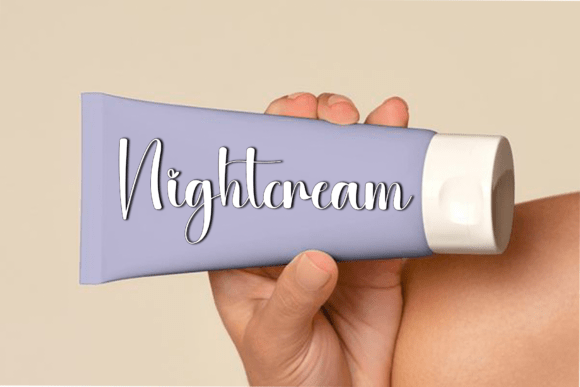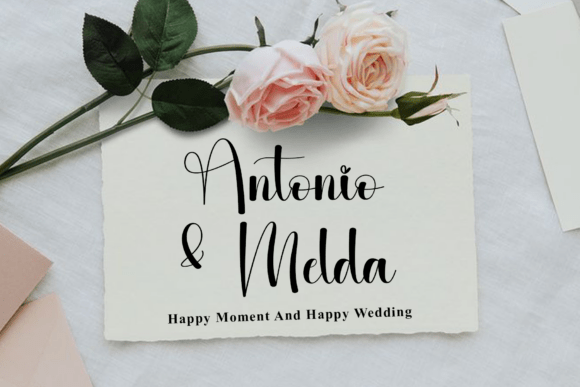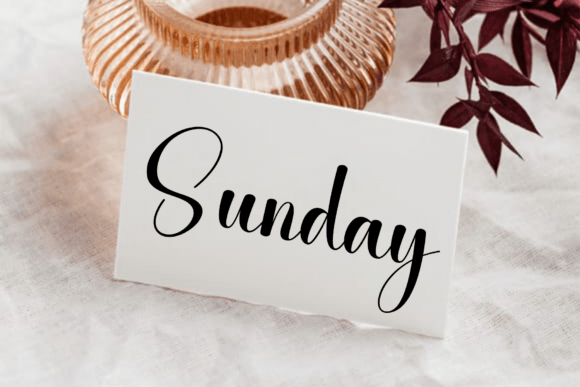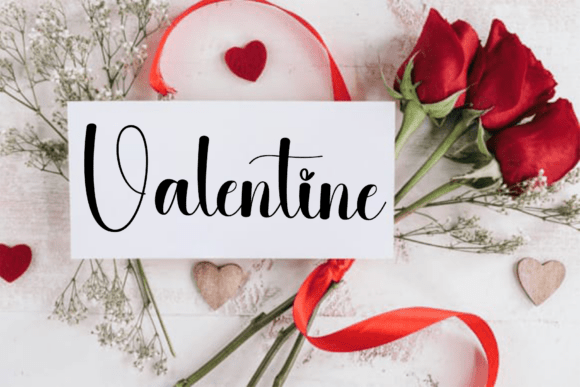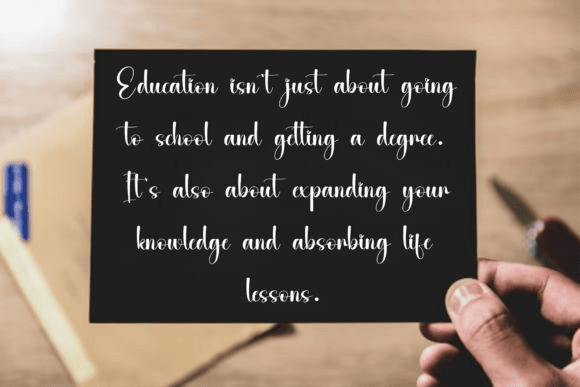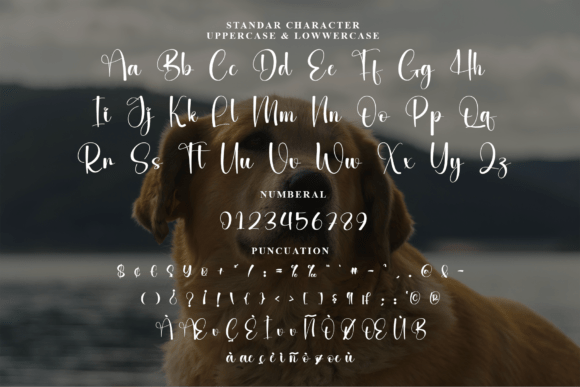
The Perfect Script for Your Next Design Project
Have you ever been stuck in front of a blank canvas, struggling to find the perfect font to capture the essence of your creative vision? We’ve all been there. But what if you could instantly elevate your design with a single, elegant font that speaks to sophistication and refinement?
Enter the Blinking Font, a stunning script font that embodies the art of modern handwritten calligraphy. Designed to evoke the feeling of a skilled calligrapher’s hand, Blinking Font is perfect for adding a touch of elegance to your next design project. With its traditional slanted axis and beautiful flourishes, this font is a valuable tool for designers looking to add a unique touch to their work.
Blinking Font Key Features
- Unique Characteristic: The font’s distinctive blinking effect is achieved through a clever use of ligatures and kerning, creating a dynamic and eye-catching visual experience.
Blinking Font Review
Overall, I have mixed feelings about the Blinking Font. There are some things that I really like, but there are also some limitations that hold it back.
- Unique Visual Effect: The blinking effect of the font is definitely eye-catching and can be used to draw attention to important text.
- Highly Customizable: The font can be easily customized to fit the needs of any project, with options to change the blink speed, color, and more.
- Good for Emphasis: The font is perfect for creating emphasis on certain words or phrases, adding a touch of drama to your design.
- Overwhelming: The blinking effect can be overwhelming if used too much, making it difficult to read or understand the text.
- Not Suitable for Large Blocks of Text: Due to the blinking effect, it’s not recommended to use this font for large blocks of text, as it can be tiring to read.
- Not Accessible: The font may not be suitable for users with certain visual impairments, as the blinking effect can cause discomfort or eye strain.
The Blinking Font is a unique and creative tool that can add a touch of personality to your designs. However, it’s essential to use it judiciously, as the blinking effect can be overwhelming if overused. With careful consideration and customization, this font can be a great addition to your design toolkit.
Blinking font is commonly used in attention-grabbing headlines, notifications, and social media posts. It can also be used to add a playful touch to your design.